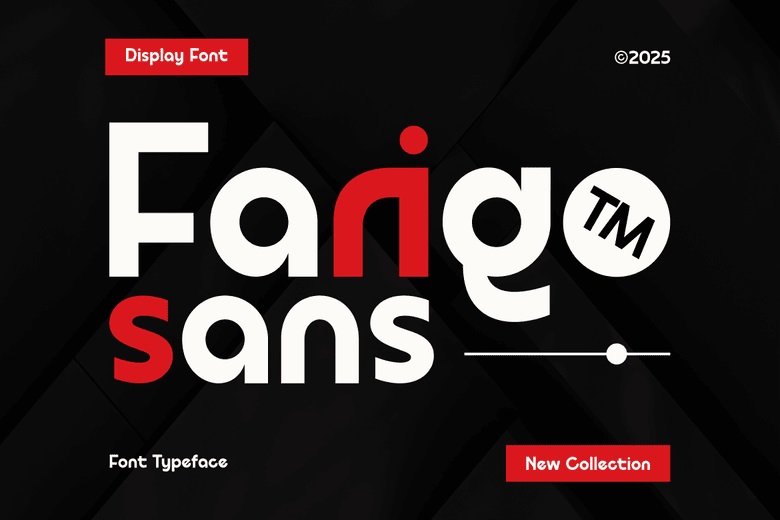
Farigo Font
Farigo is a Modern Sans Serif font that you can used in many types of project, such as brochure, poster, logotype, book, title, cover, printing, headings, magazine, website, business cards, etc. I consider this Font as a very versatile one and can be effectively implemented to many designs.
Moreover, the font is perfect for use in the world of graphic design and modern typography due to factors such as its clean professional and contemporary look, in addition, to the conception of simple sophistication coupled with the aesthetic beauty of the font.
Farigo Sans Serif Font